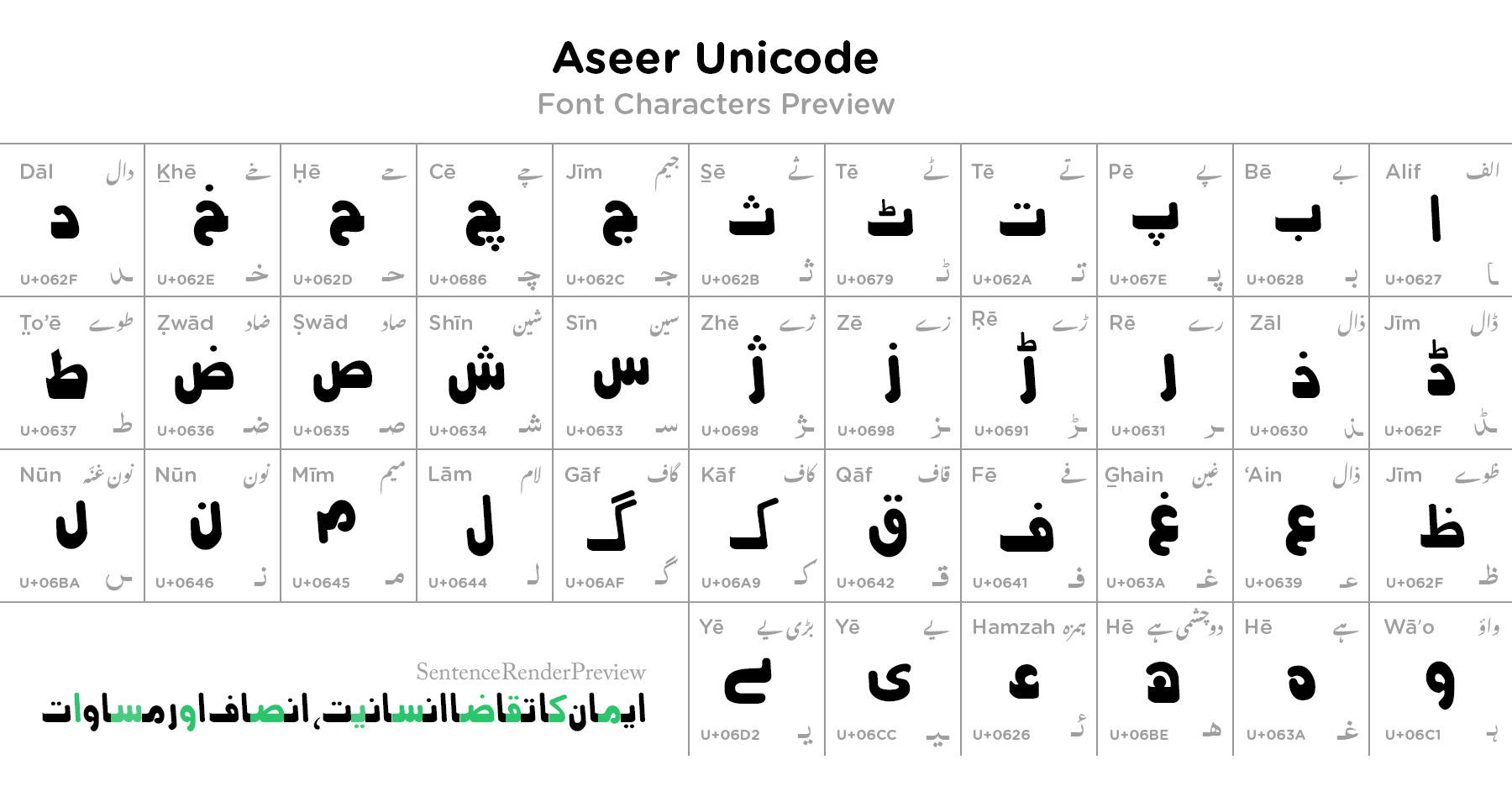
Aseer Unicode, crafted by font designer Syed Manzar Hasan Zaidi and developed by Axis Softmedia Pvt. Ltd., is a bold, dynamic font style with rounded, wide, and symmetrical letterforms. Drawing inspiration from the Naskh script with modern influences, this font was released on February 27, 2016. Featuring a strong design, this font offers compatibility with various languages and platforms, making it suitable for Urdu, Arabic, Latin, Persian, and more. A glyph count of 497 and 444 characters and symbols ensures comprehensive language support across different text projects.
The font’s thick and rounded appearance gives off a playful yet legible outlook, ideal for branding aimed at children, T-shirt designs, comic books, and other artistic projects. Despite its bold nature, Aseer Unicode maintains high legibility on screens, even at smaller sizes, owing to its large letterforms. Characterized by thick and soft strokes, the font’s edges and corners impart a playful charm, while its wide spacing between letters ensures clarity and readability. Some characters feature incomplete terminals with rounded edges, adding to their unique visual appeal. It is best suited for shorter text blocks due to its thick and extra-bold nature, making it a versatile choice for various design projects requiring a bold and playful typography style.